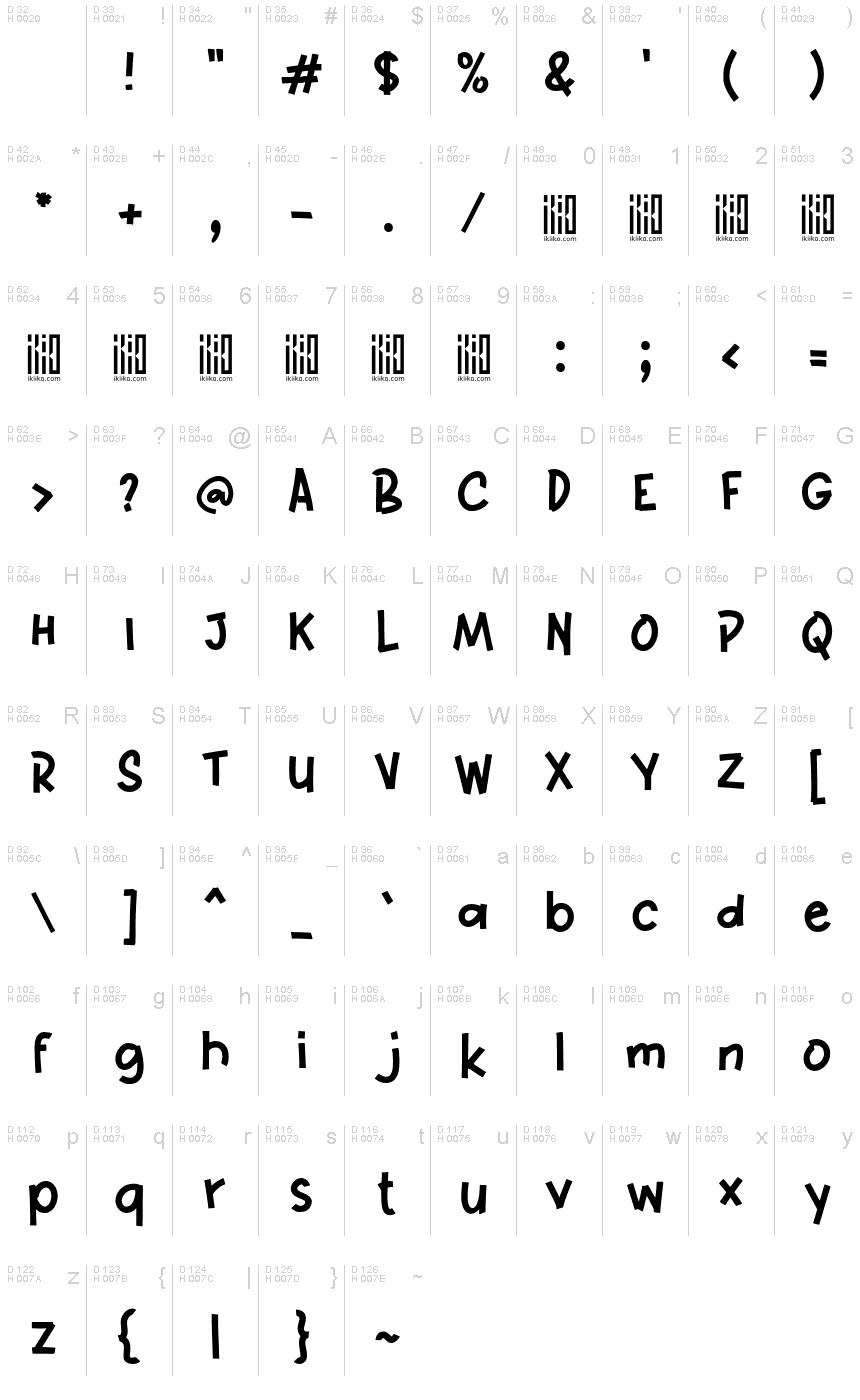
GOODZILLAZ ikiiko.com
Goodzillaz, crafted by the imaginative minds at Ikiiko Type, offers a playful and energetic twist to display typography. Its cartoon style brims with a lively personality that is both approachable and delightfully expressive. The semi-light weight of Goodzillaz strikes an inviting balance between bold presence and whimsical light-heartedness, making it an excellent choice for creative projects that aim to engage and entertain.
The rounded contours and buoyant form of Goodzillaz exude charm, suitable for captivating headlines, spirited branding, or any design endeavor that calls for a touch of fun without sacrificing readability. From children's books to quirky advertisements, this font's versatility shines through its ability to transform words into an enchanting visual narrative. Explore the potential of Goodzillaz in your next project and let its unique character infuse your work with a dash of joy and originality.